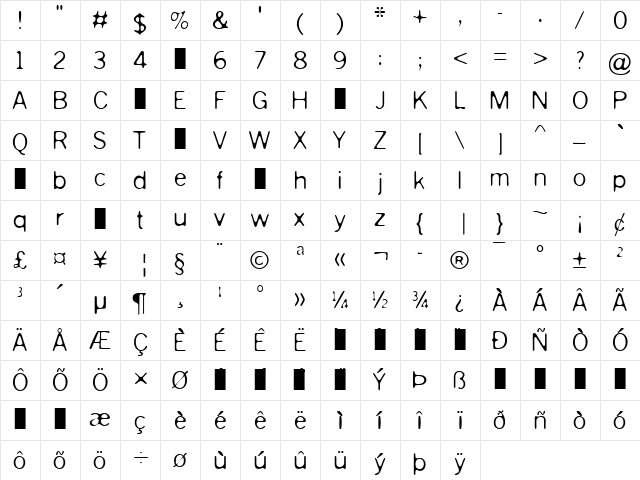
SLdemo Regular Font Preview
SLdemo Regular
SLdemo Regular Font Details
Design Context for SLdemo Typeface
SLdemo is a composed and adaptable typeface that performs quietly and consistently across a wide range of design contexts.